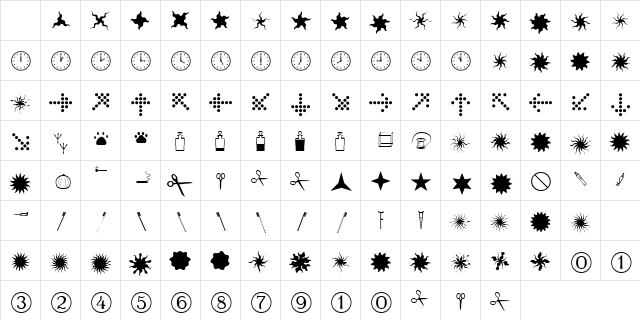
Complete XIngDingLeftover Regular glyph index. Displaying only characters natively supported by XIngDingLeftover Regular font.
XIngDingLeftover is a composed and adaptable typeface that performs quietly and consistently across a wide range of design contexts.